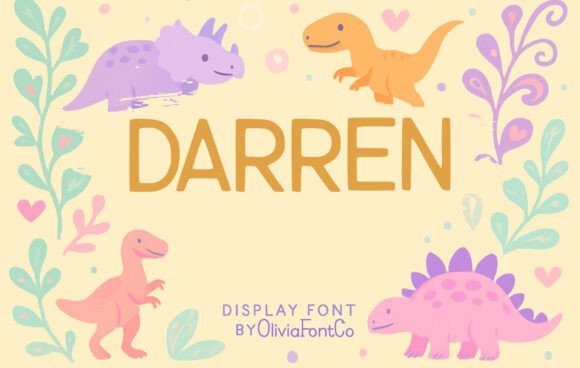
The Perfect Font to Bring Your Creative Ideas to Life
Have you ever stared at a blank page, desperately searching for the perfect font to bring your creative vision to life? We’ve all been there. It’s that moment when everything seems to be missing that special something – until you find it. And for designers, that something is often the perfect font. Enter Darren Font, a game-changing typeface designed to take your creative ideas to new heights.
Whether you’re working on a magazine headline, a social media campaign, or a wedding invitation, Darren Font is the perfect companion. Its legibility and versatility make it a true favorite among designers. With its clean lines and modern aesthetic, this font is sure to elevate your designs and leave a lasting impression.
Darren Font Review
Overall, I’d say that Darren Font is a solid, dependable choice for a sans-serif font family. Here are some of the things that stand out:
- ✨ The font’s clean lines and minimal ornamentation make it a great choice for digital applications, such as websites and mobile apps.
- ✨ The font’s scalability is impressive, making it suitable for use in a wide range of sizes and resolutions.
- ✨ The font family includes a decent range of weights and styles, making it easy to find the perfect fit for your design needs.
That being said, there are a few limitations to consider:
- ⚠️ The font’s character set is somewhat limited, which may not be suitable for use in languages that require a broader character set.
- ⚠️ The font’s x-height is a bit on the small side, which may make it less readable at smaller font sizes.
Overall, I’d say that Darren Font is a good choice for designers who need a clean, dependable sans-serif font. While it may not be the most exciting or unique font, it gets the job done and is easy to work with. If you’re looking for a solid, reliable font for your next project, Darren Font is definitely worth considering.
Tips for Getting the Most Out of Darren Font
For best results, pair the Darren Font with a clean and minimalist design aesthetic. Use it to create a modern and professional look for your text-based content.
The Darren Font is suitable for a variety of applications, including:
- Business cards and resumes
- Web design and digital content
Comparison to Darren Font: While Darren Font has a more elegant and sophisticated feel, Open Sans is more straightforward and functional. Use Open Sans when you need a font that’s easy to read and doesn’t compete with your design elements.
Comparison to Darren Font: Montserrat has a more edgy and modern feel compared to Darren Font’s elegant and sophisticated style. Use Montserrat when you want to convey a sense of urbanity and modernity in your designs.